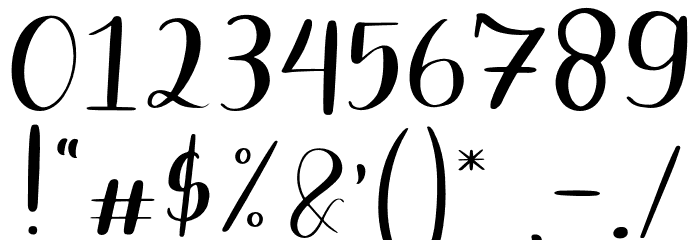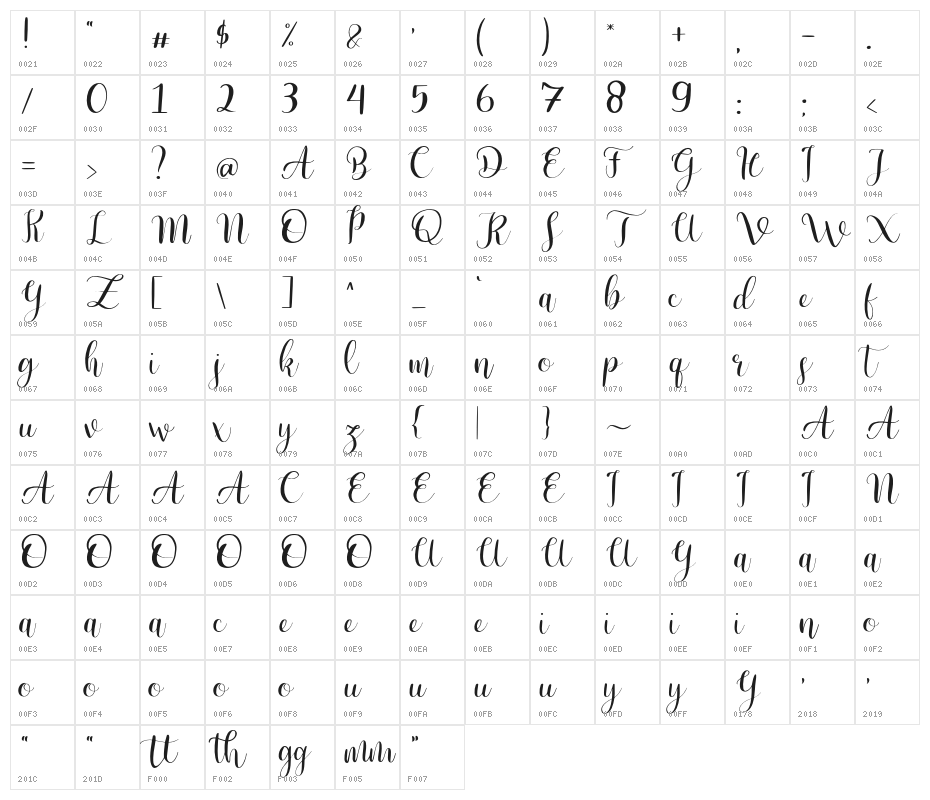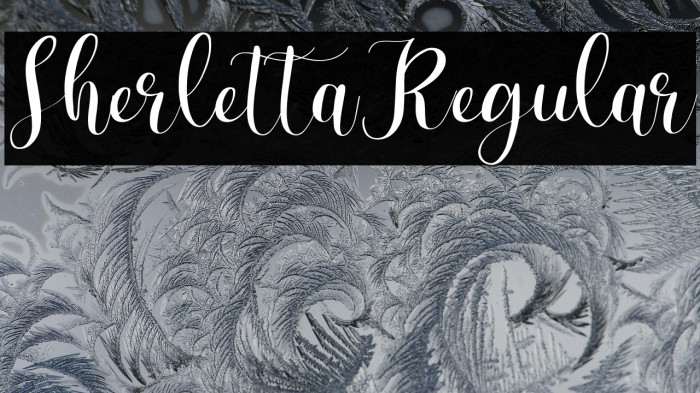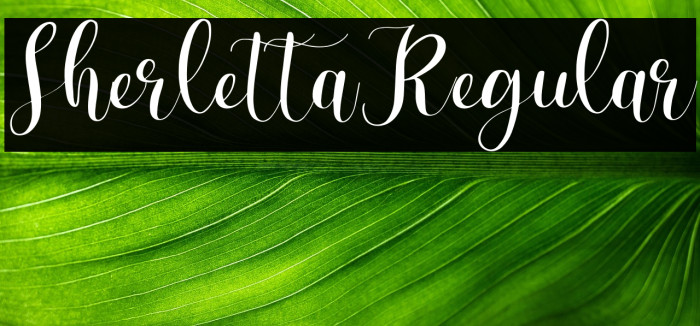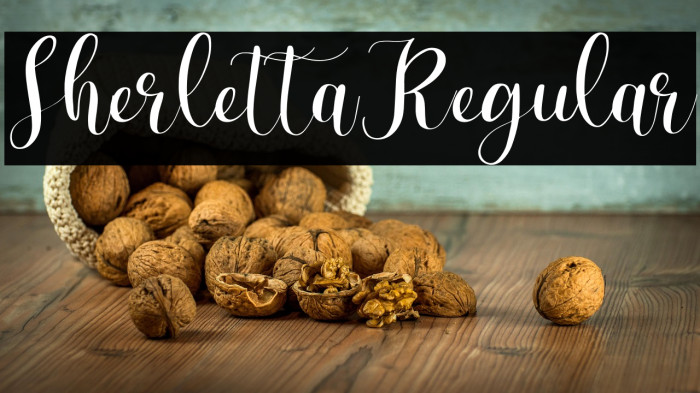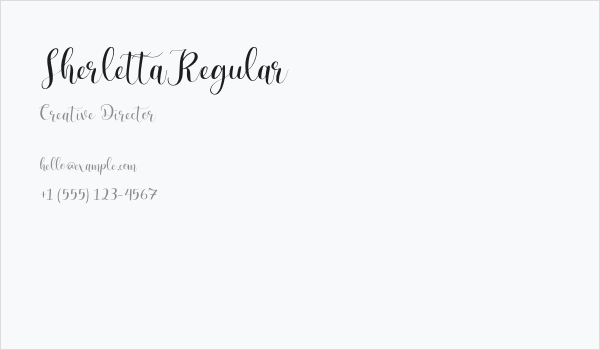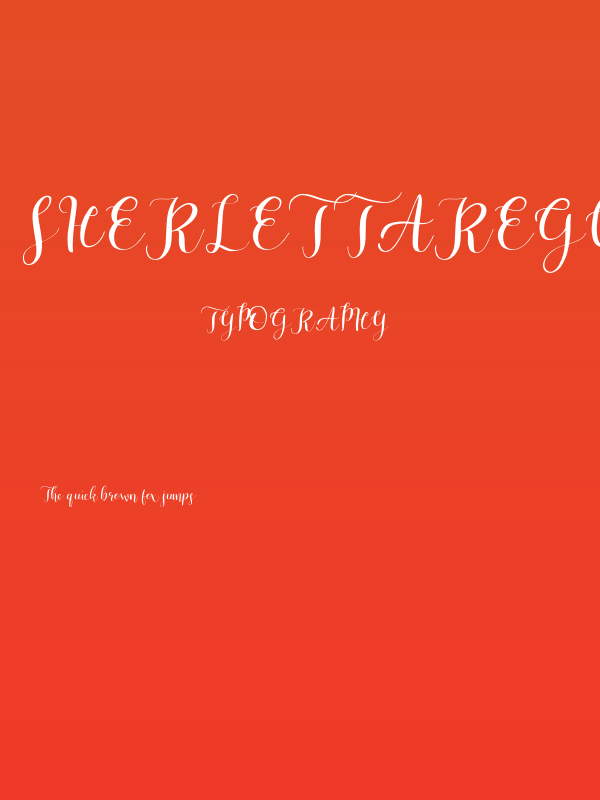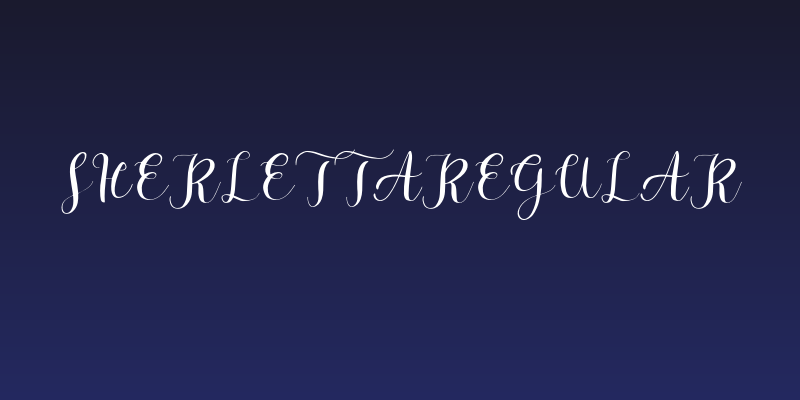
SherlettaRegular Font
SherlettaRegular Description
This font exhibits a graceful and elegant script style, characterized by its flowing, cursive letterforms. The uppercase letters are ornate, with sweeping curves and flourishes that give a sense of sophistication and fluidity. The lowercase letters maintain a consistent style, with smooth connections and a slightly more restrained flourish, ensuring readability while retaining an artistic flair. The numerals are distinct and maintain the script style, adding a touch of elegance to numerical expressions. Special characters are thoughtfully designed to match the overall aesthetic, making this font suitable for creative and decorative uses.